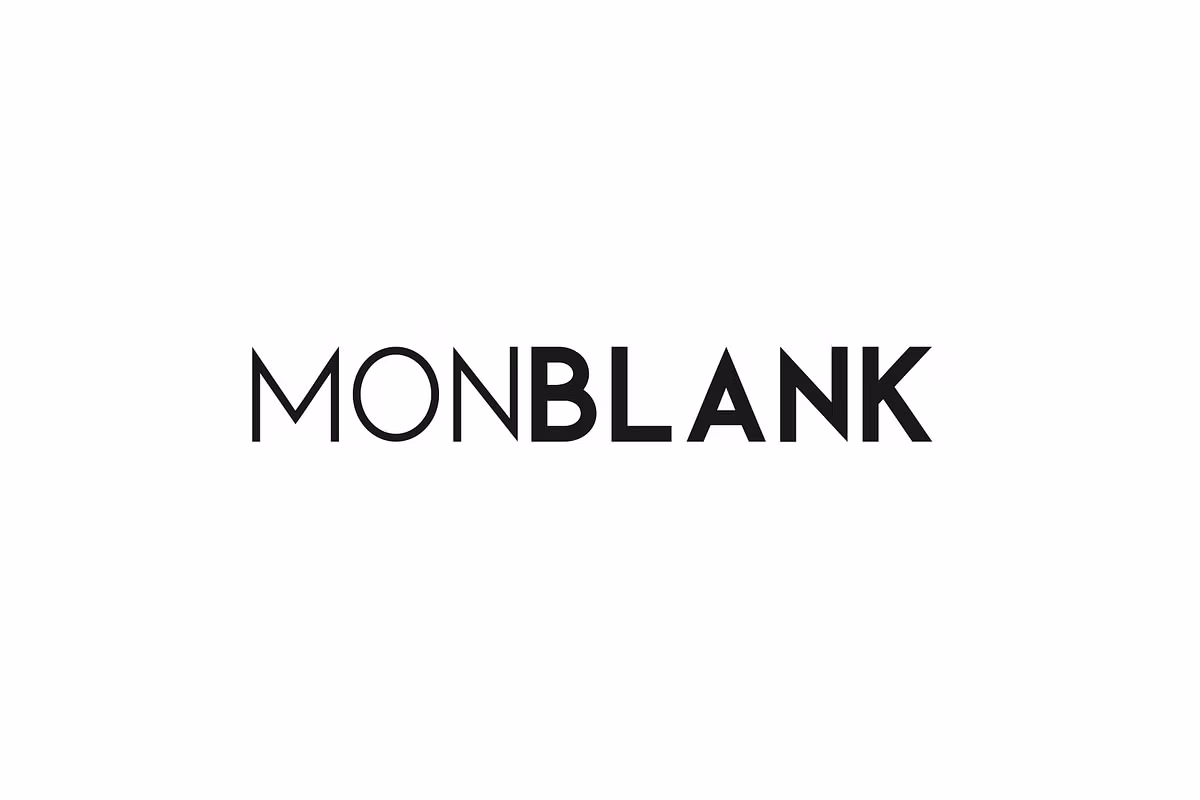
Monblank. Sans serif family Free Download
Monblank Sans Serif Family Free Download
Monblank Sans Serif Family Free Download is a modern and clean typeface family that combines geometric precision with a friendly, approachable feel. With a range of weights and styles, this versatile font family is perfect for branding, editorial design, websites, logos, and any project that requires a sleek, contemporary look.
Whether you’re creating a minimalist brand identity, designing a modern website, or developing corporate materials, Monblank delivers clarity, modernity, and professionalism to your typography. It’s the ideal font family for designers who appreciate clean, functional, and stylish design.